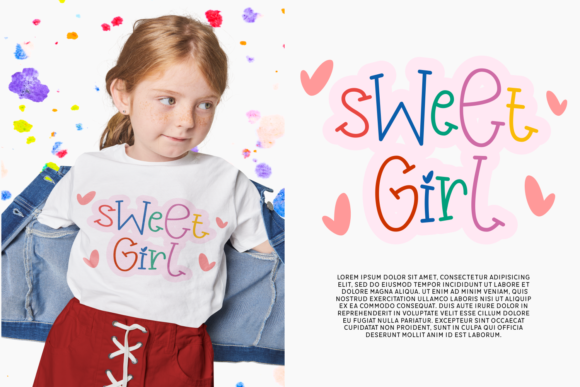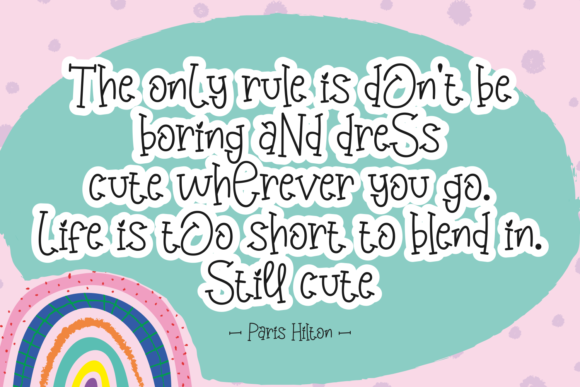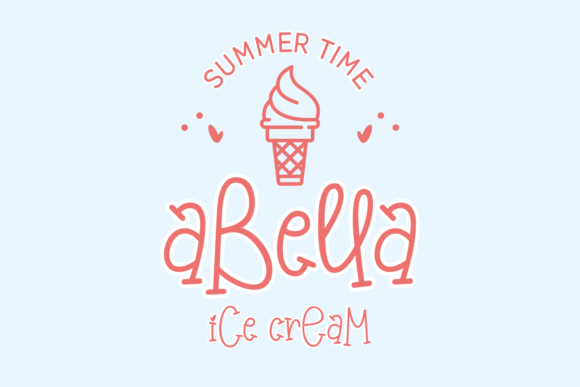
Introduction to Monilla Font
Monilla is a cute and playful serif font.
This lovely typeface features thin lines and, in combination with bright colors, is all that you need to elevate your creations It’s a perfect match for kids’ clothing, fashion, branding, children-themed designs, food&drinks menus, packaging, labels, and quotes.
Key Features of Monilla Font
Why Choose Monilla Font?